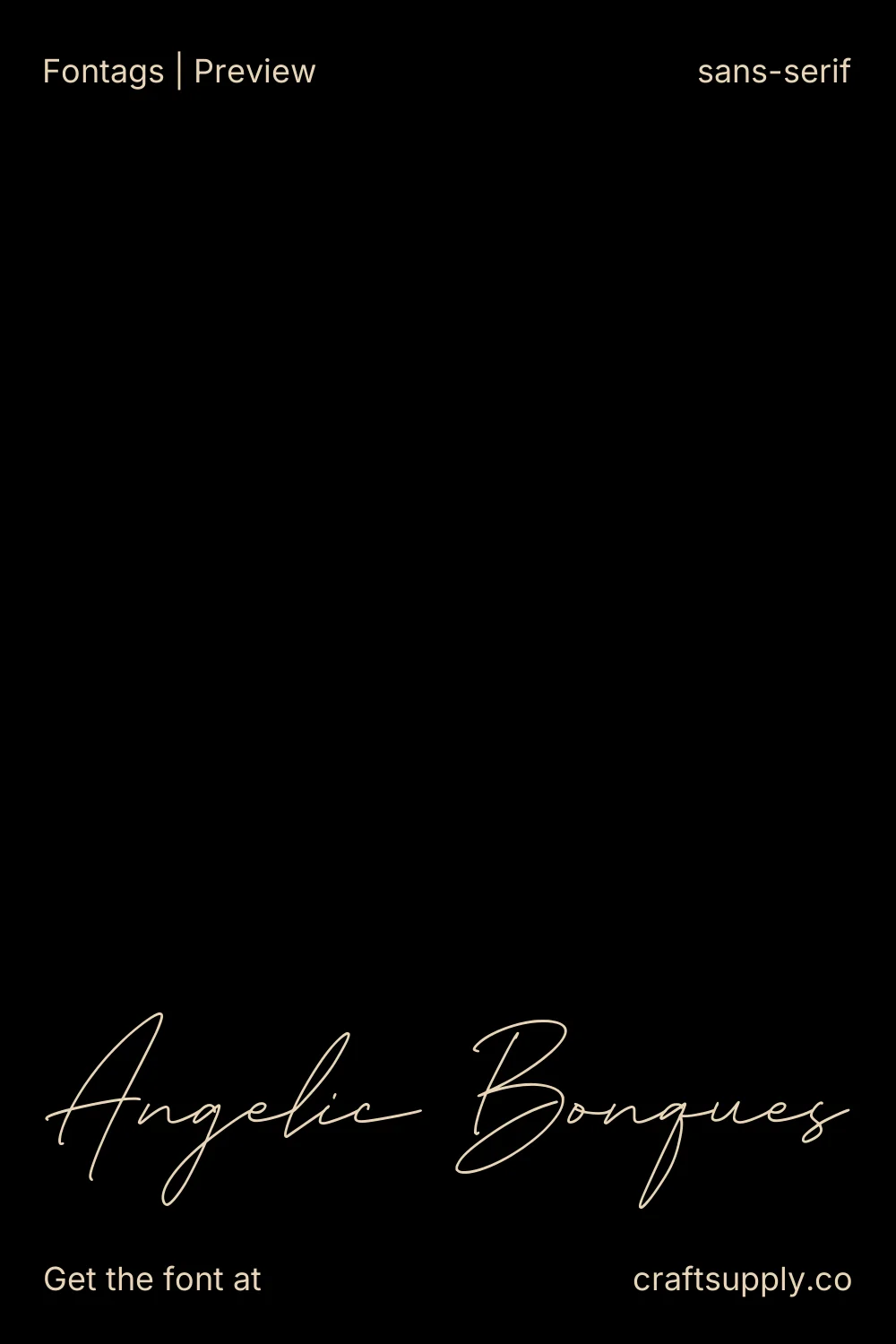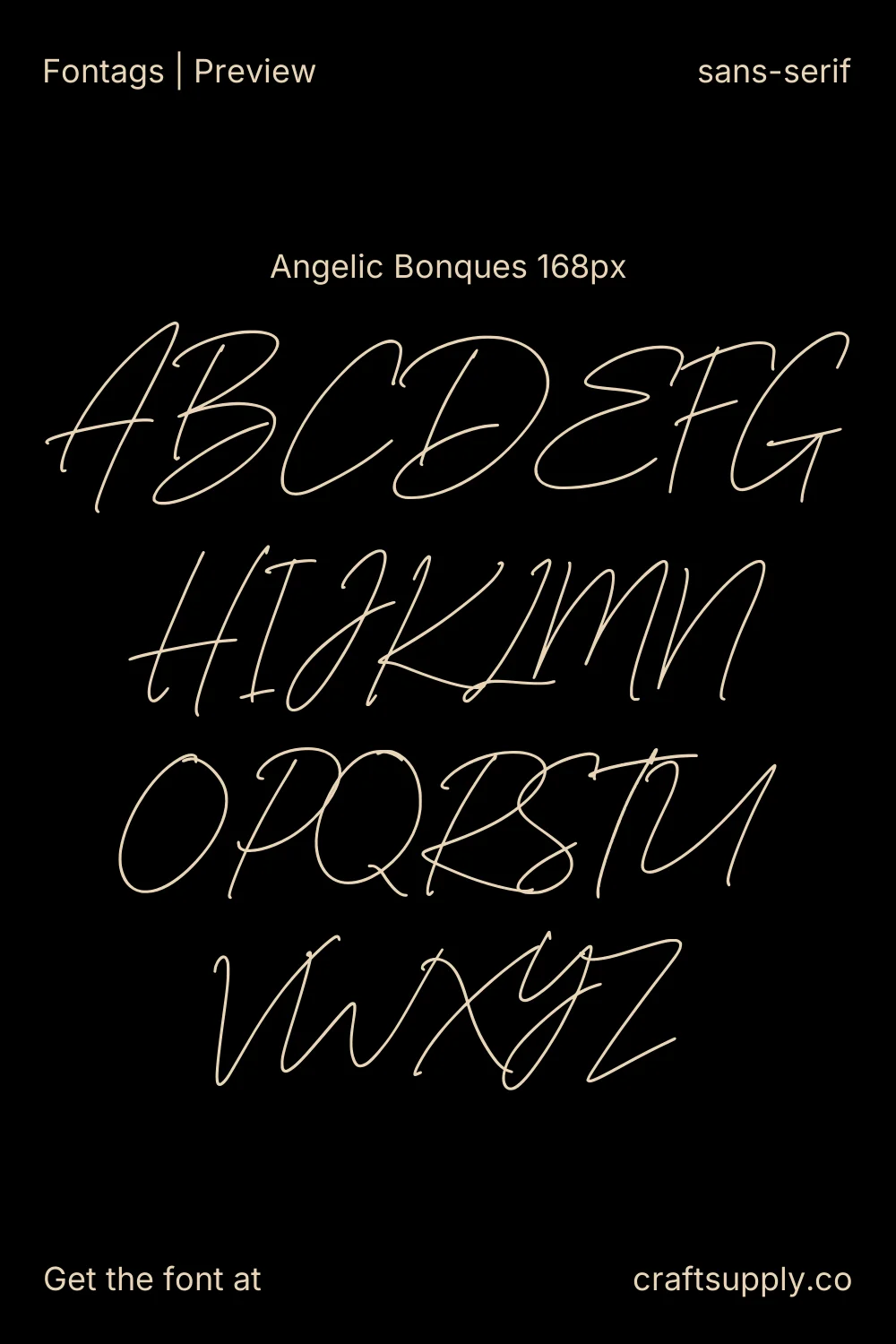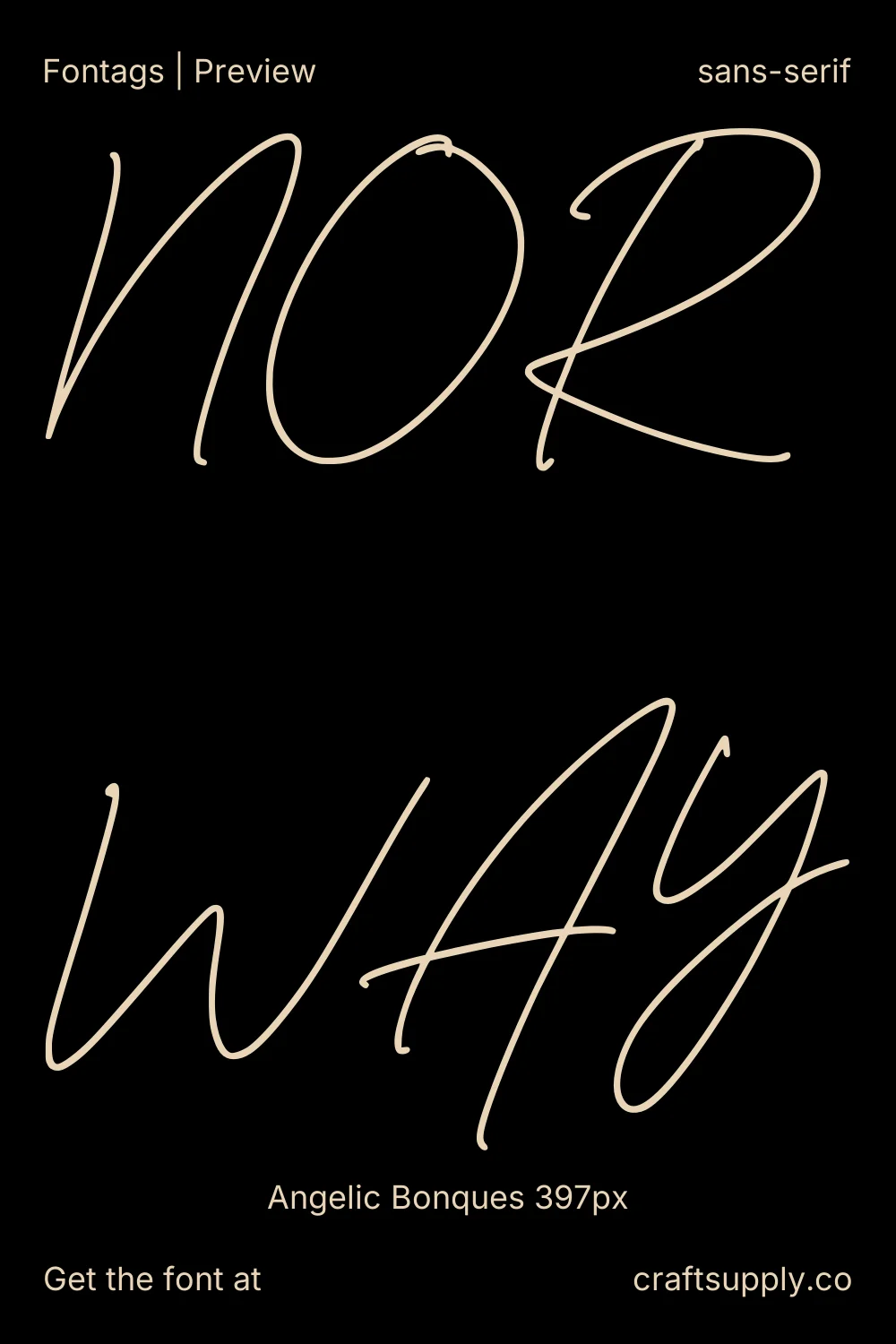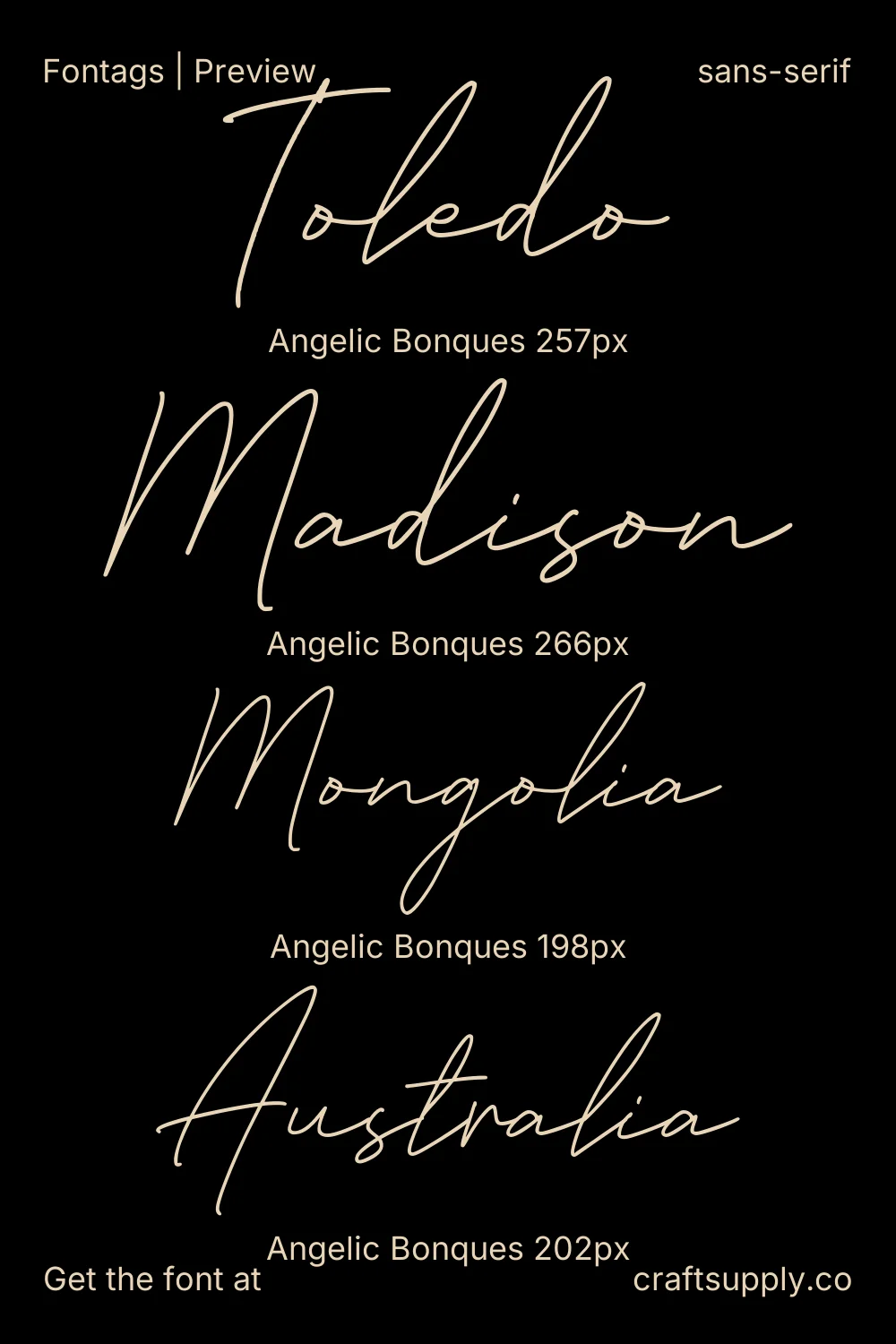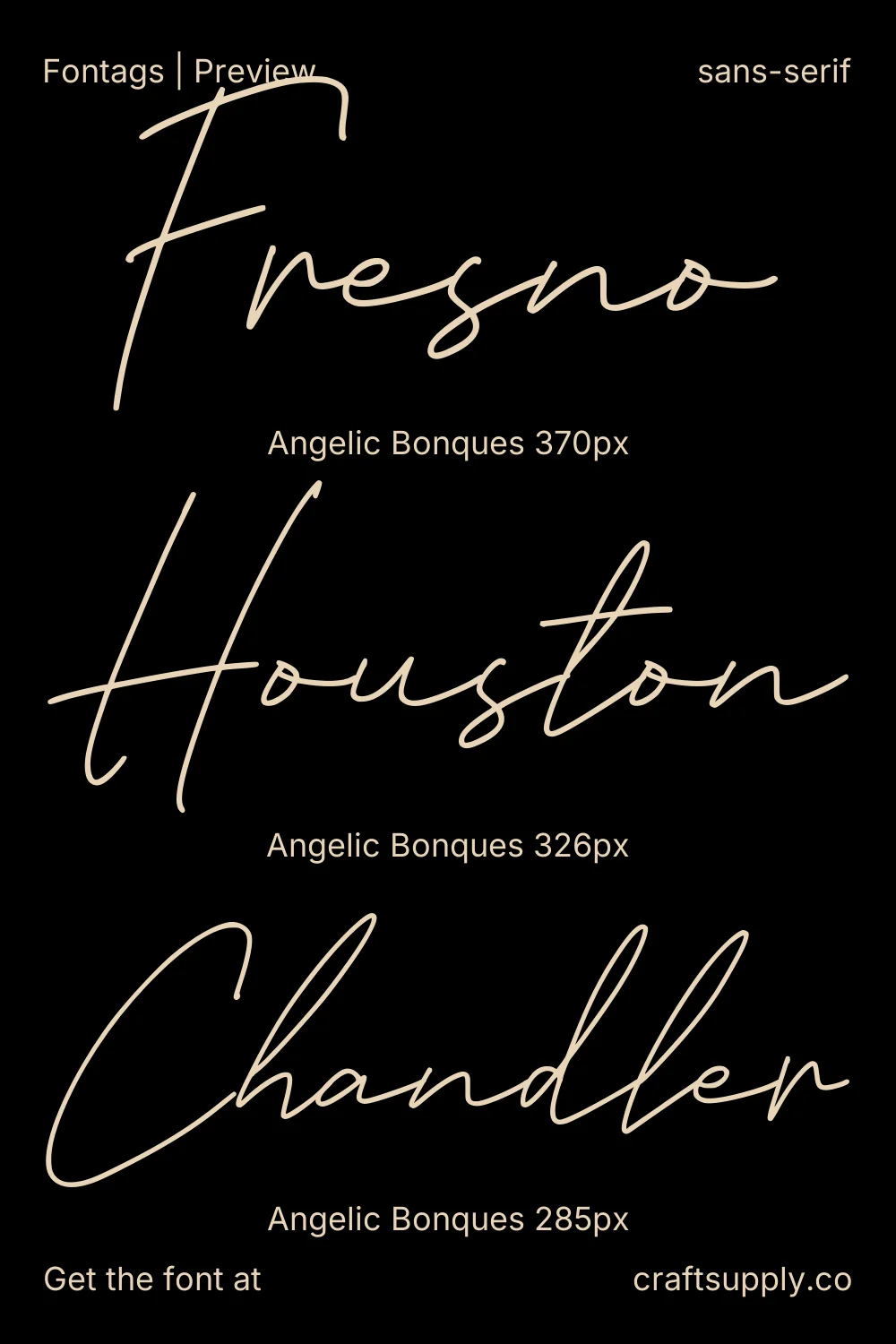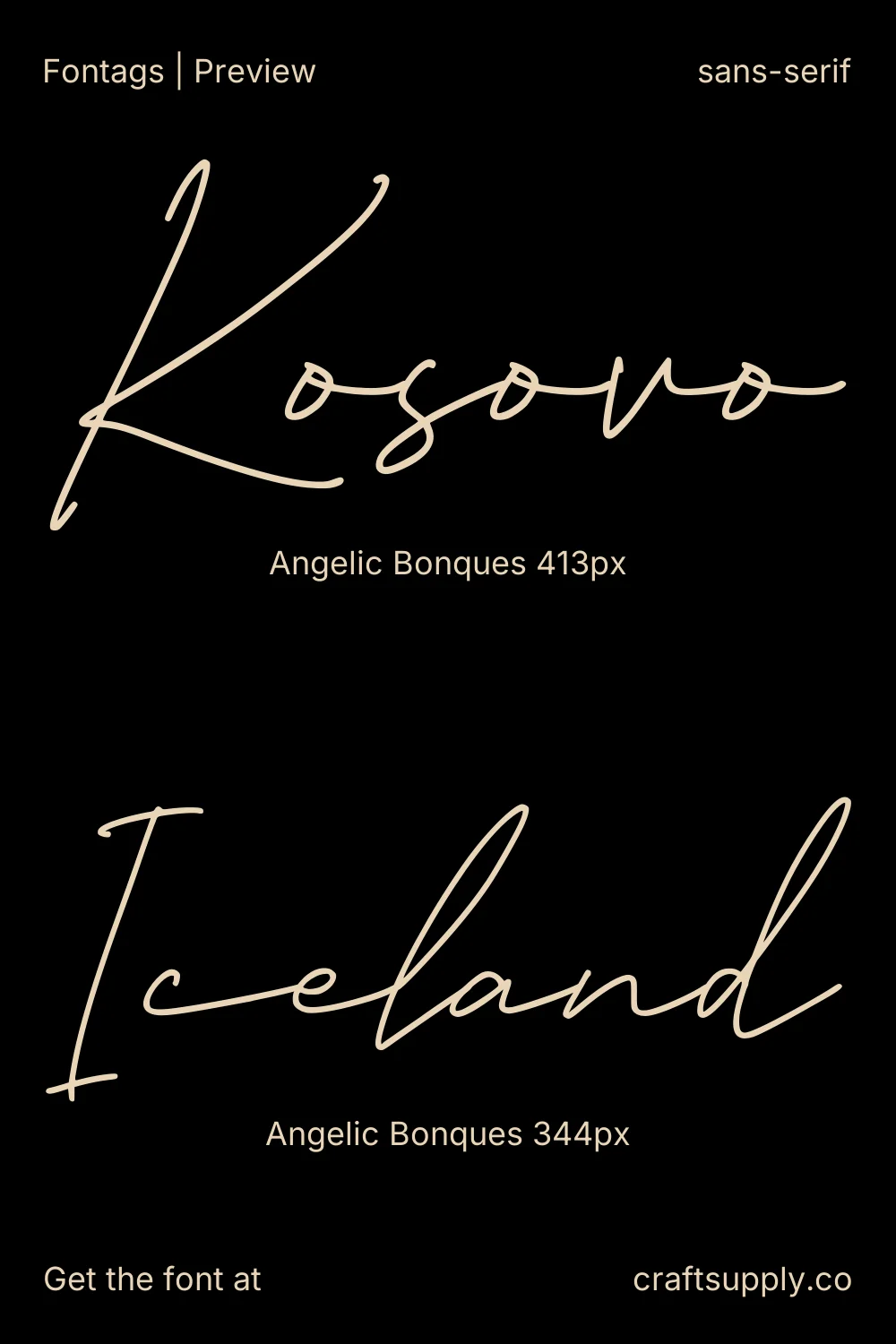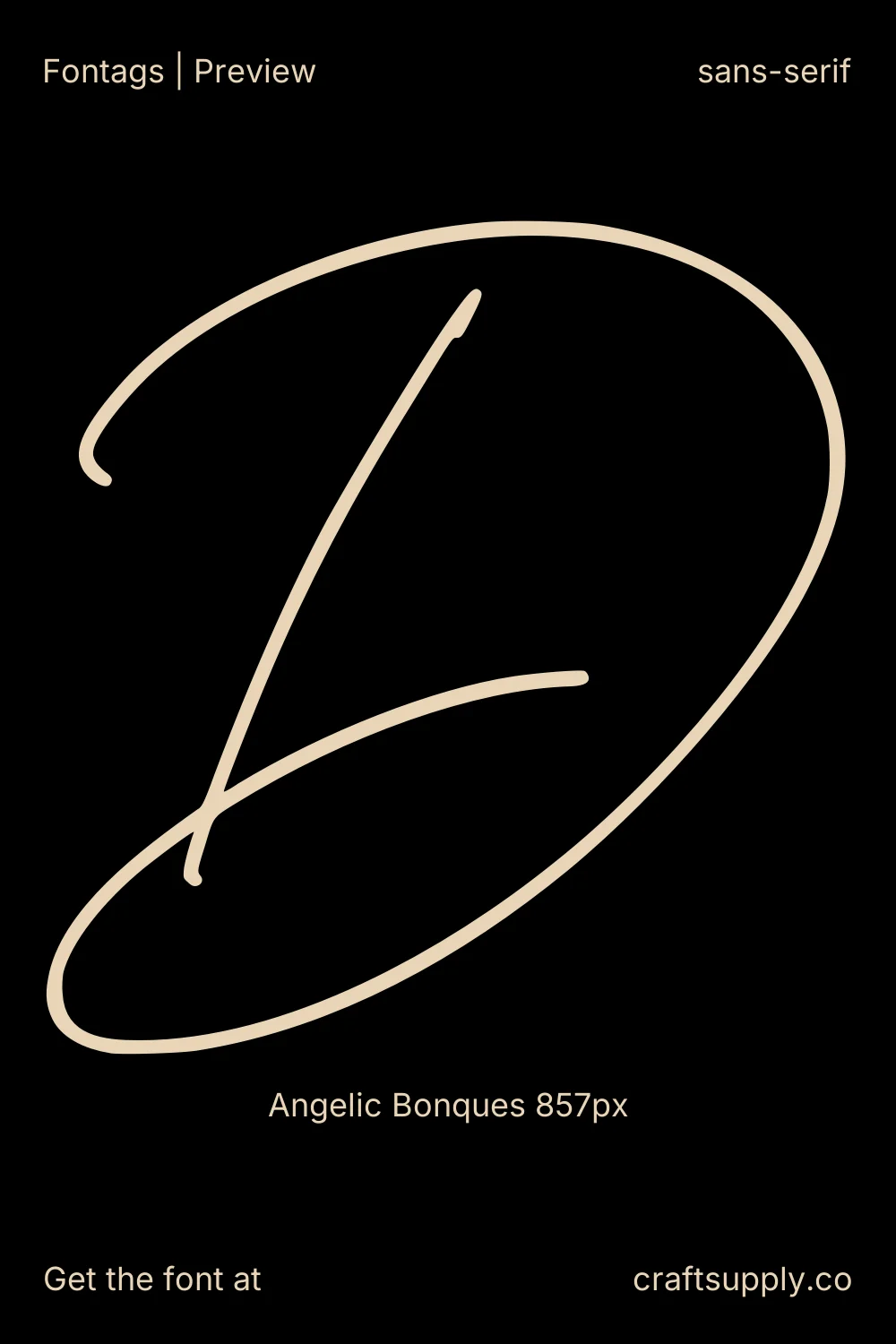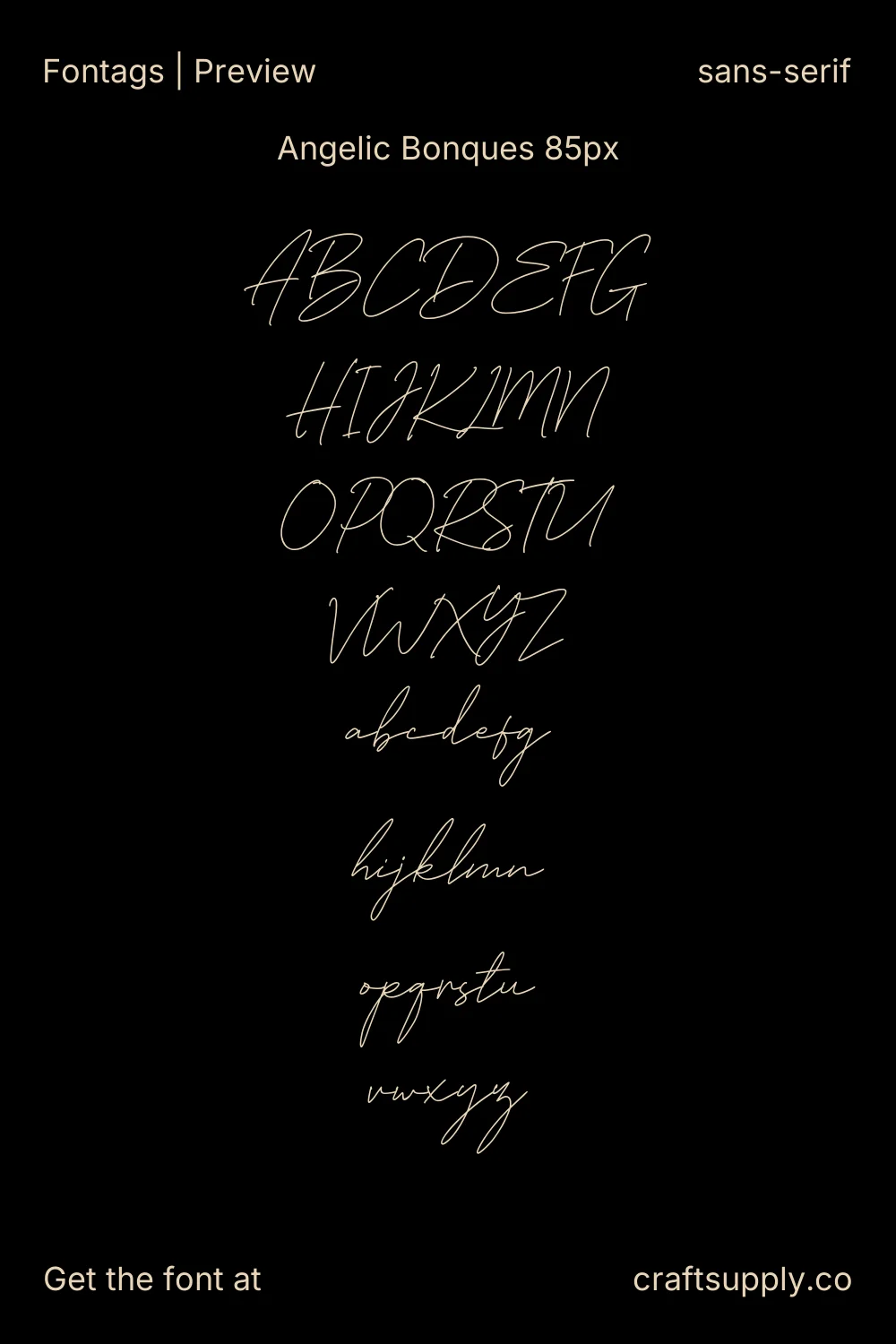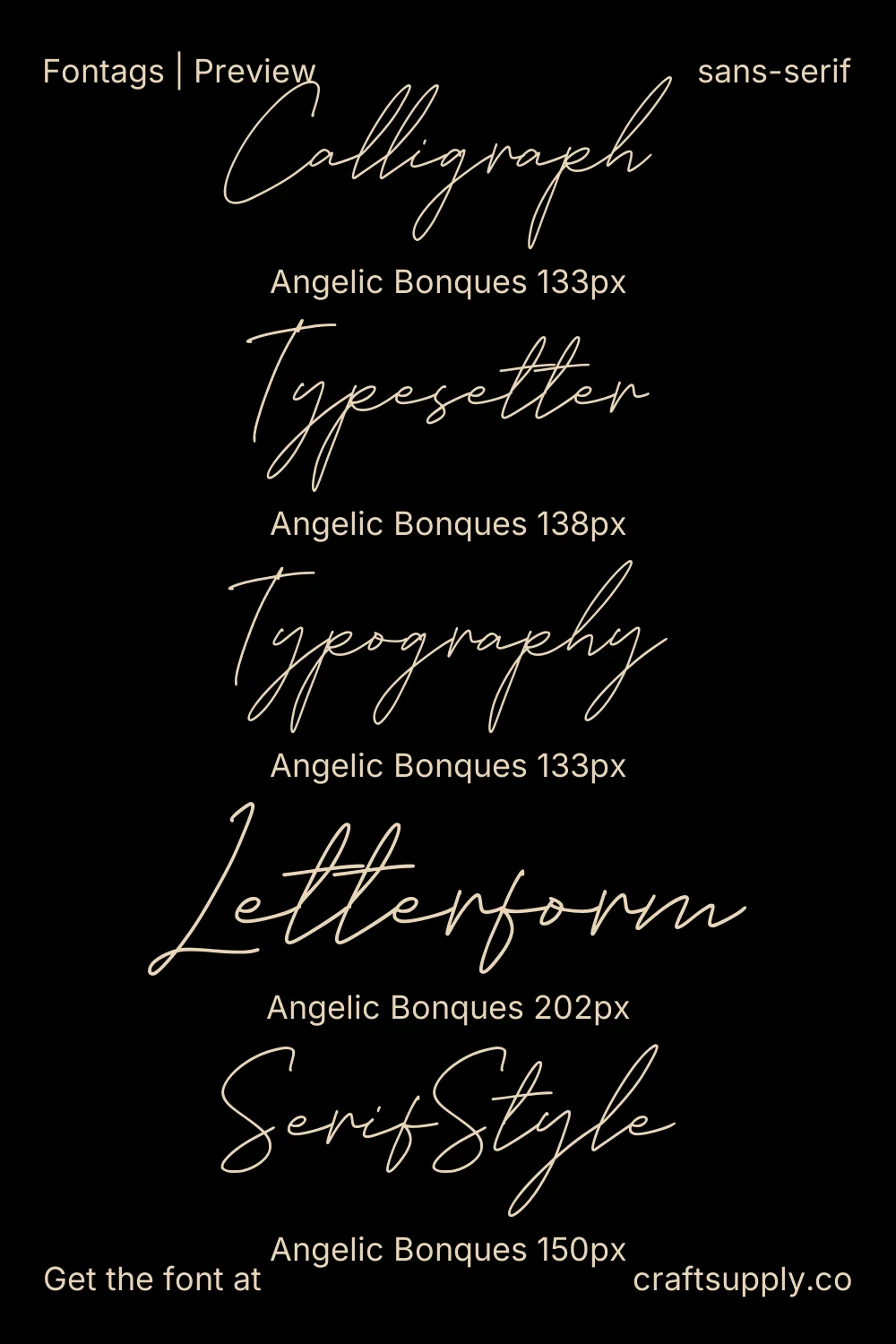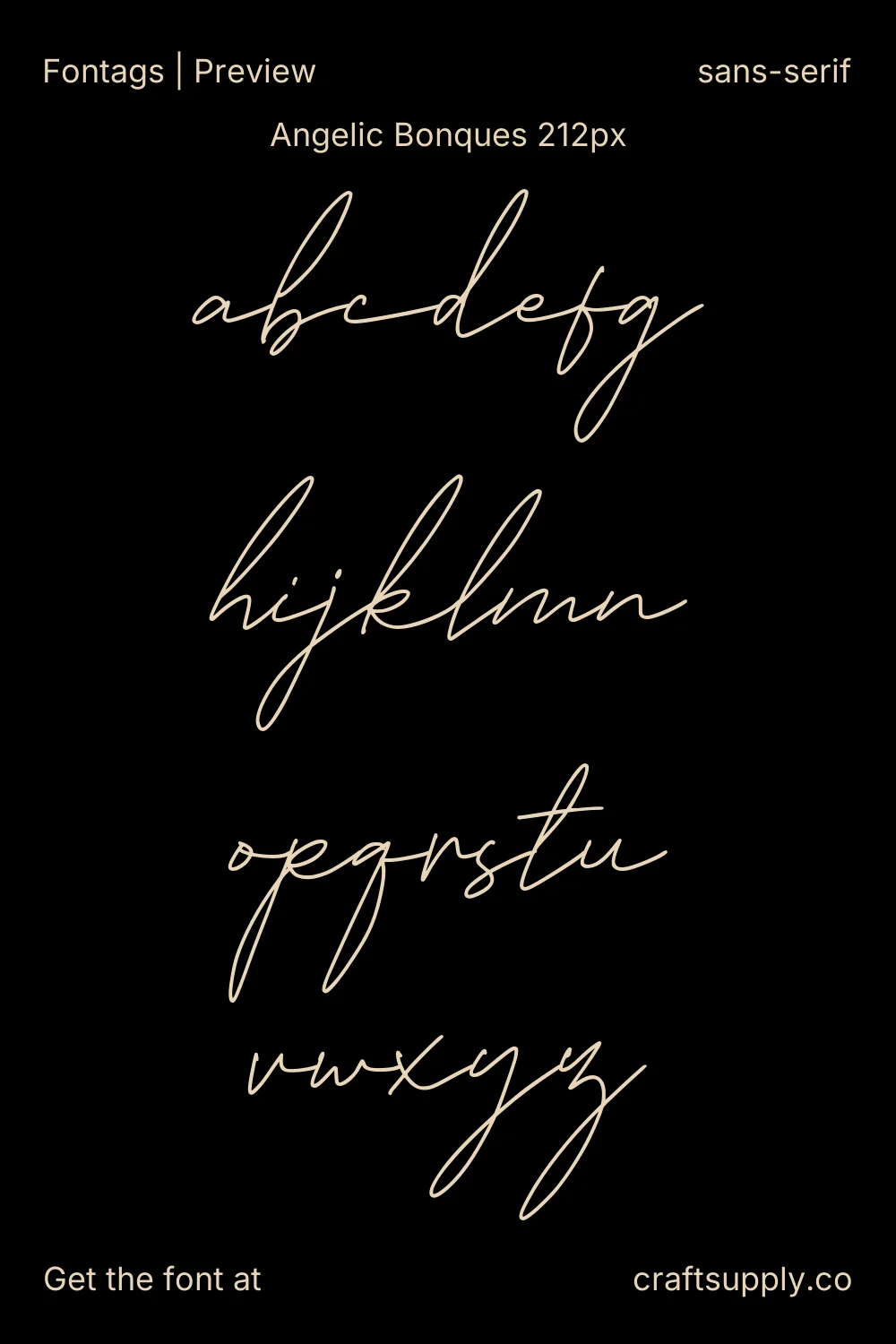
Angelic Bonques
Angelic Bonques is a font duo that combines an elegant sans serif with a beauty handwritten script. The pair's refined, upscale style is ideal for fashion, e-commerce, wedding boutiques, trend blogs, and chic stationery. It lends a modern yet authentic handcrafted touch to logos, quotes, and branding.